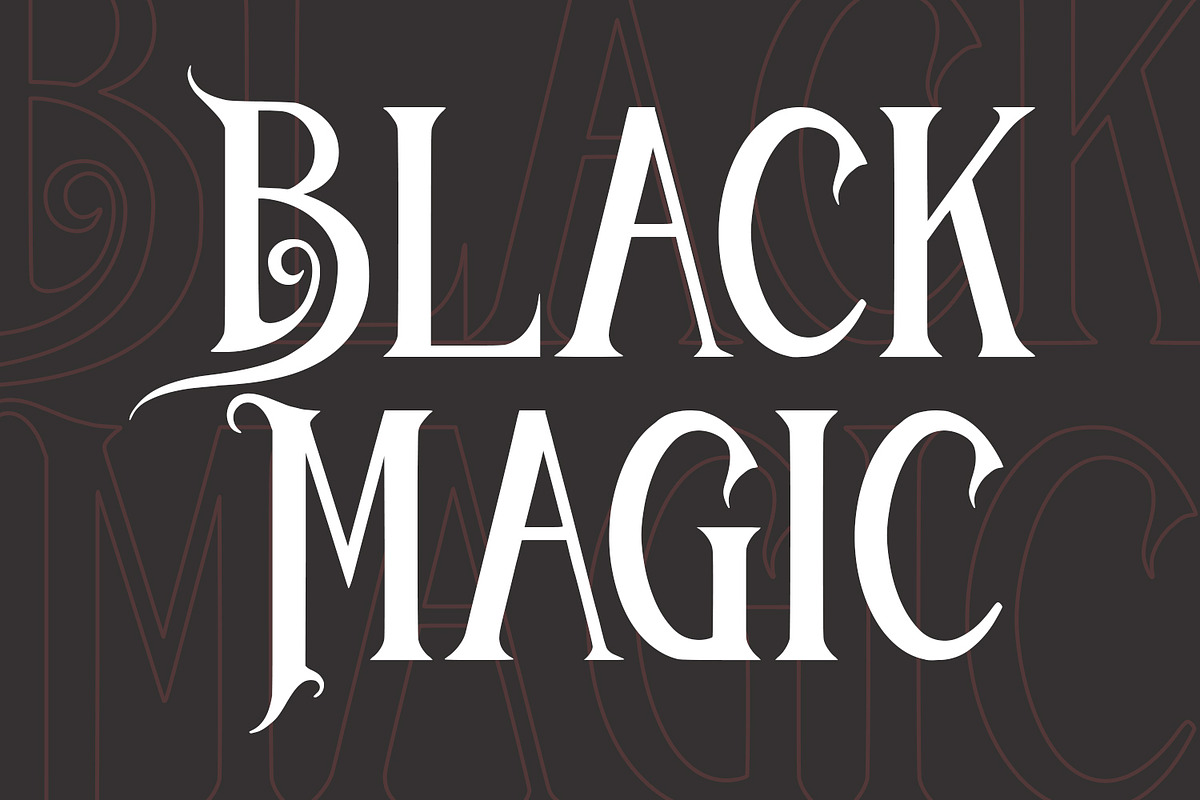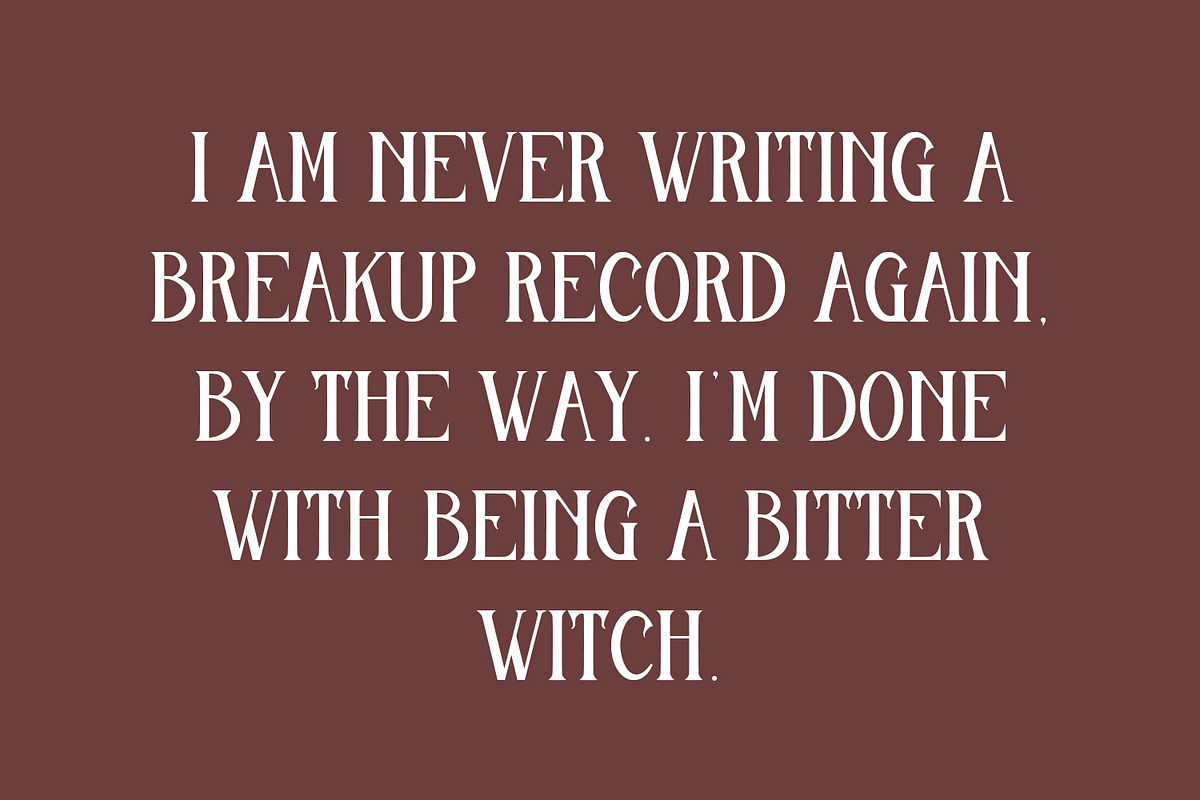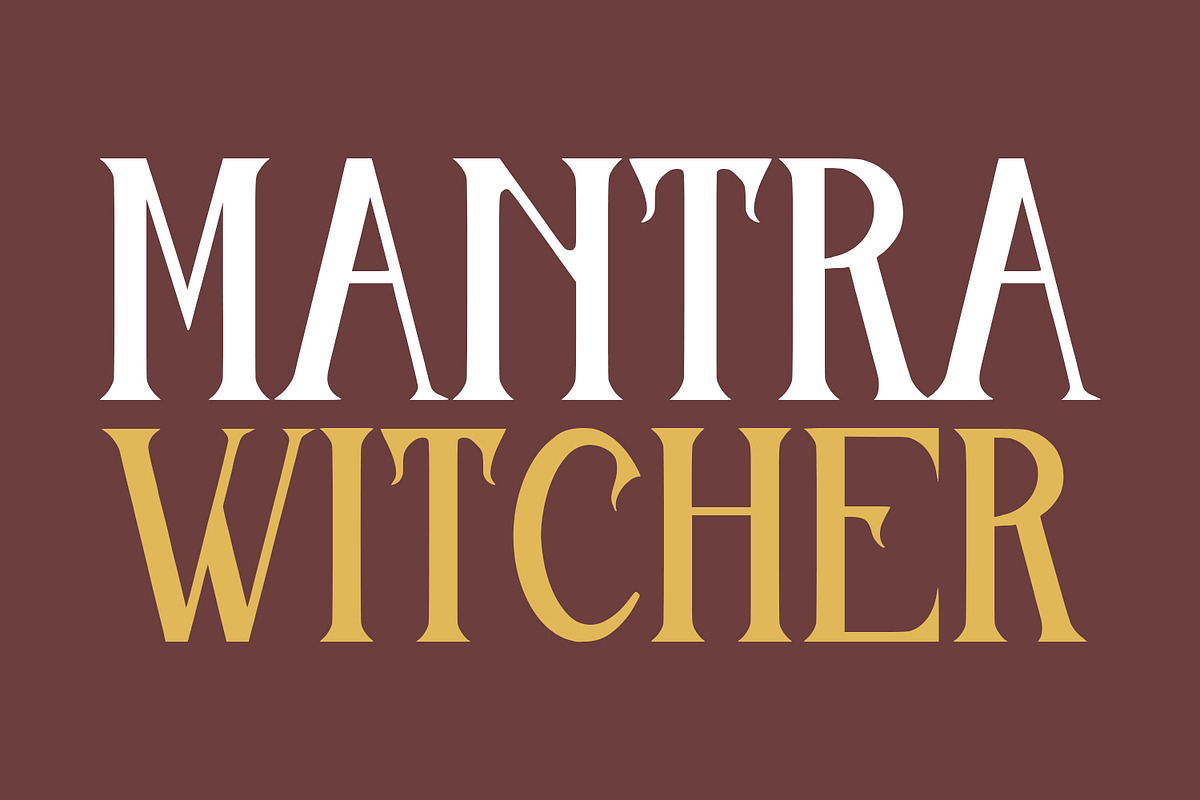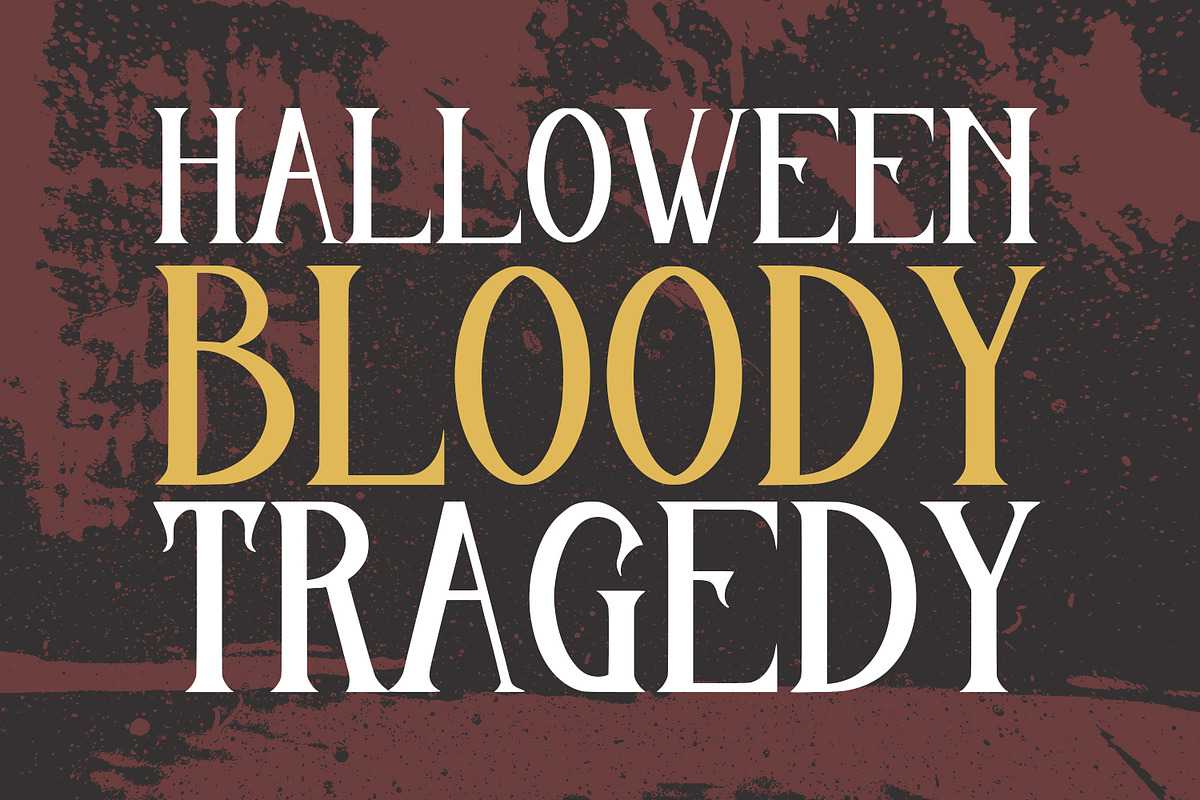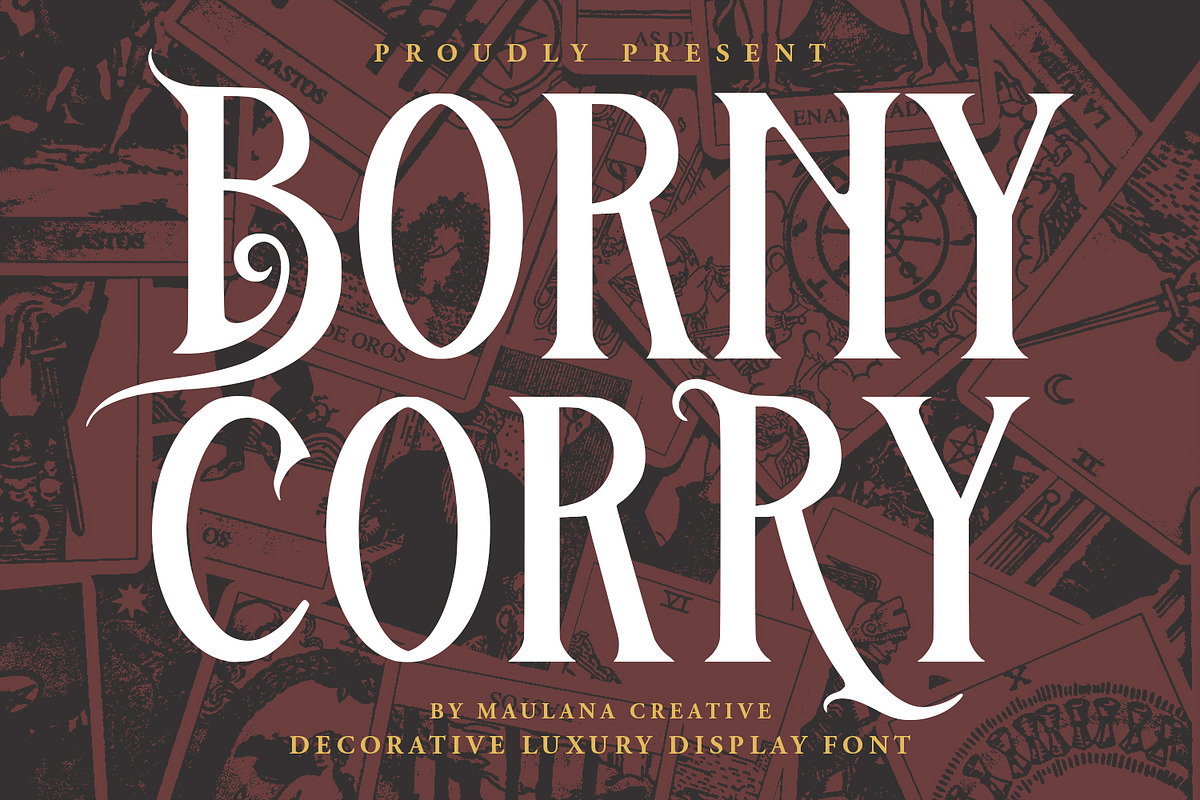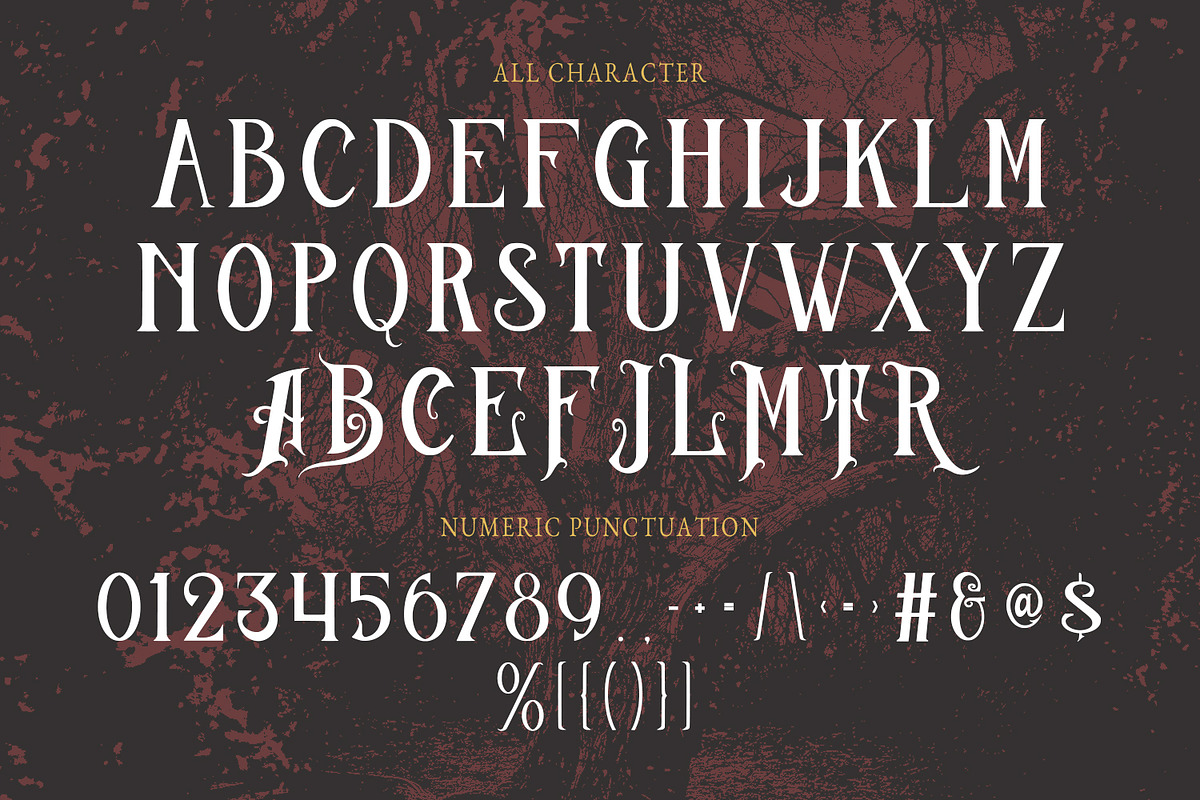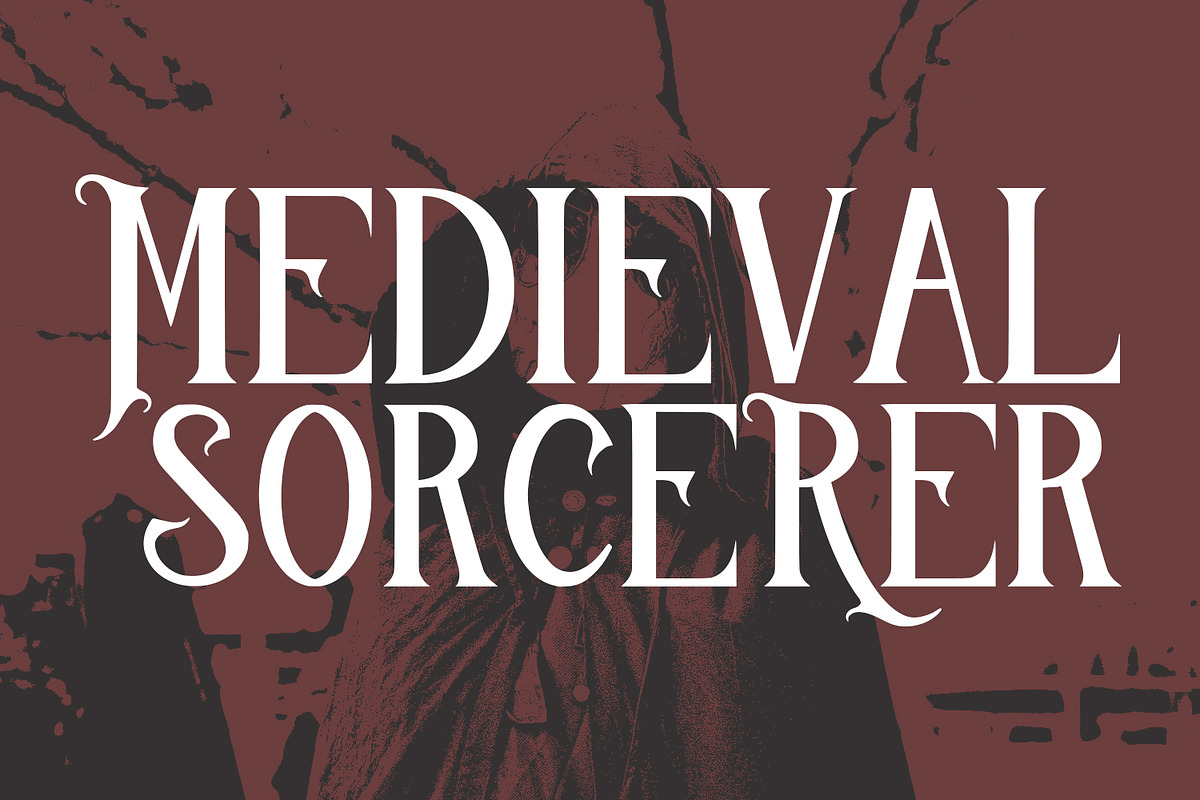
Borny Corry Decorative Luxury Displa
Borny Corry Decorative Luxury Display Font.
Borny Corry Luxury Serif Font is a handmade Modern Victorian handlettering, which is combining modern and classic typography with some awesome alternates. Yes we back to early 1800s, bring classic touch on this decade.